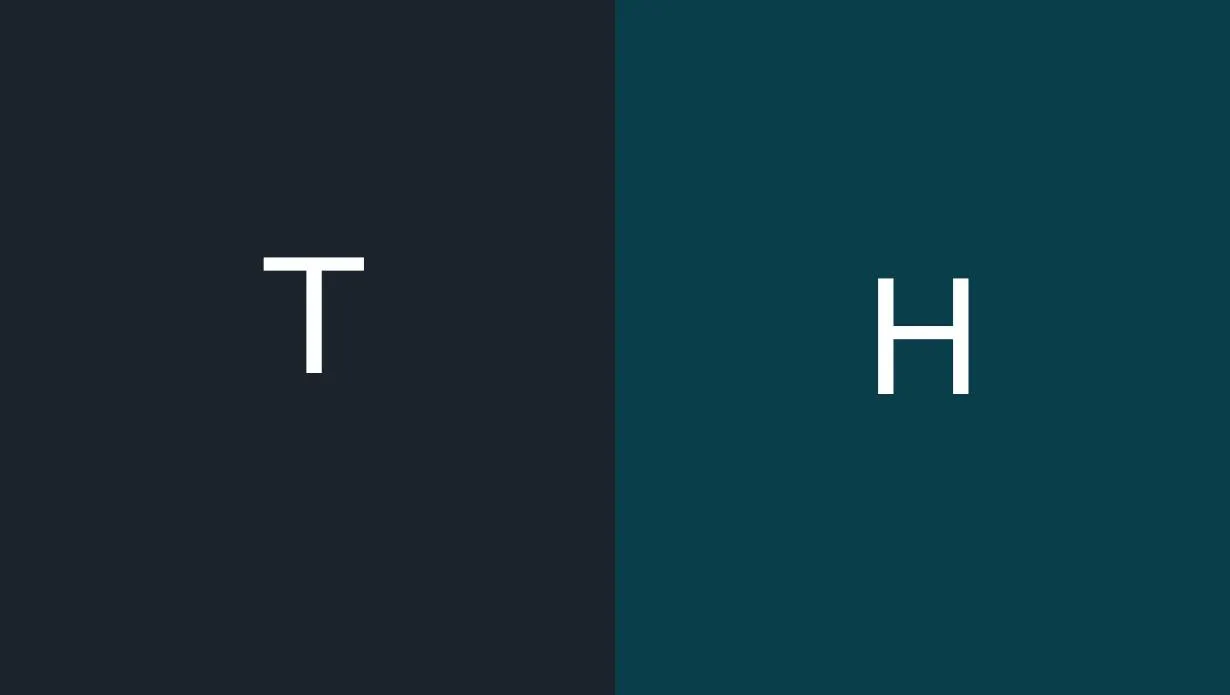
Here we’re presenting a unique, elegant, and awesome font style that comes with a smooth and highly legible appearance. The Th Sarabun PSK Font belongs to the sans serif texture family that will surely bring a soft and remarkable touch to any content.
Suppakit Chalermlarp was the designer of this typeface.
It has advanced OpenType and TrueType features. This typeface supports Latin, Thai, and multilingual, it also contains uppercase, lowercase, figures, punctuations, alternates, accents, etc.